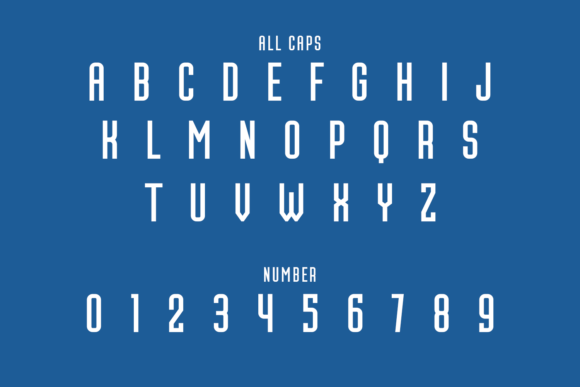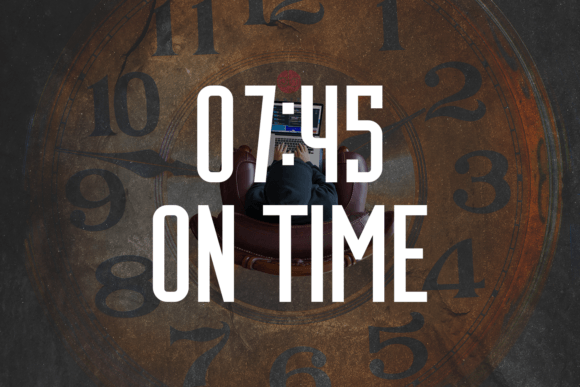
Introducing Endoka Font: The Modern Sans Serif Game-Changer
In the world of typography, fonts play a crucial role in conveying messages, setting tones, and creating visual identities. For designers, crafters, and creatives, finding the perfect font can be a daunting task. However, if you’re looking for a cool and modern sans serif font that can elevate your creations, look no further than Endoka Font.
The Versatility of Endoka Font
Endoka is a versatile font that can be used for a wide range of projects, from branding and advertising to digital media and crafting. Its modern sans serif design makes it an excellent choice for designers who want to add a touch of sophistication and elegance to their work. Whether you’re creating a logo, brochure, or social media post, Endoka Font is sure to make a lasting impression.
What Makes Endoka Font Stand Out?
So, what sets Endoka Font apart from other fonts in its category? Here are a few key features that make it an incredible asset to your font library:
- Clean and Modern Design: Endoka Font boasts a clean and modern sans serif design that’s perfect for creating visually appealing content.
- High Readability: The font’s clear and legible design ensures that your text is easy to read, even at small sizes.
- Versatile and Adaptable: Endoka Font can be used for a wide range of projects, from digital media to print materials.
- Unique Character: The font’s unique character and charm make it an excellent choice for designers who want to add a touch of personality to their work.
How to Use Endoka Font in Your Designs
Endoka Font is incredibly easy to use and can be incorporated into your designs in a variety of ways. Here are a few tips to get you started:
- Pair it with Other Fonts: Endoka Font pairs well with other fonts, making it easy to create visually appealing combinations.
- Experiment with Font Sizes: The font’s clear design ensures that it remains legible even at small sizes, making it perfect for use in headlines, body text, and captions.
- Use it for Branding and Advertising: Endoka Font’s modern design makes it an excellent choice for branding and advertising projects, such as logos, brochures, and social media posts.
The Benefits of Using Endoka Font
Using Endoka Font in your designs can have a range of benefits, including:
- Improved Readability: The font’s clear design ensures that your text is easy to read, even at small sizes.
- Increased Visual Appeal: Endoka Font’s modern design adds a touch of sophistication and elegance to your creations.
- Enhanced Brand Identity: The font’s unique character and charm make it an excellent choice for designers who want to create a strong brand identity.
In conclusion, Endoka Font is a cool and modern sans serif font that’s sure to elevate your creations. Its versatility, readability, and unique character make it an incredible asset to your font library. Whether you’re a designer, crafter, or creative, Endoka Font is a must-have for anyone looking to add a touch of sophistication and elegance to their work.
Get Ready to Elevate Your Designs with Endoka Font